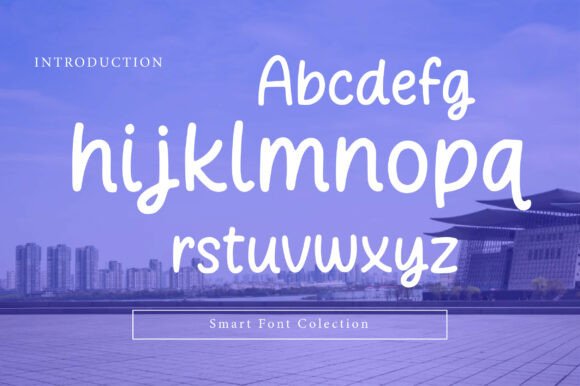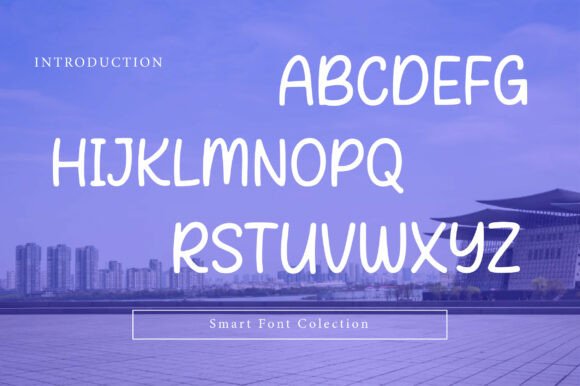
Introduction to Mirexo Font
Have you ever stared at a blank canvas, waiting for the perfect font to bring your creative project to life? That’s exactly what happened to many designers when they discovered the Mirexo Font. Its unique blend of modern and handwritten styles has been making waves in the design community, and for good reason.
With its clean, confident, and contemporary character, the Mirexo Font is the ultimate design resource for any creative project. Whether you’re working on a branding campaign, designing a logo, or creating a stunning poster, this versatile font is sure to deliver a high-quality visual impact.
Key Features of Mirexo Font
- Features a transparent background, making it ideal for use on both light and dark backgrounds.
- Designed with precision and care, offering a high-resolution (up to 300 DPI) font for crisp and clear typography.
- Perfect for use in various design applications, including logos, branding, and digital graphics.
- Comes in a range of sizes, from small to large, allowing for flexibility in design composition.
Honest Review: Mirexo Font
As a designer, I’m always on the lookout for high-quality design resources that can elevate my creative projects. The Mirexo Font is a solid addition to any design library, offering a clean and modern aesthetic that works well for a variety of applications. ✨
- One of the standout features of the Mirexo Font is its versatility. It’s perfect for creating a bold, eye-catching headline or a more subtle body text.
- The Mirexo Font also features a transparent background, allowing for seamless integration with any design element.
However, there are a few limitations to keep in mind. ⚠️ The font’s range of characters is somewhat limited, which may make it less suitable for complex or technical projects.
Overall, I’d recommend the Mirexo Font for designers looking for a high-quality, free design resource that’s easy to use and versatile. While it may not be perfect for every project, it’s a great addition to any design library and can help take your creative projects to the next level.
Tips for Getting the Most Out of Mirexo Font
Experiment with different font sizes, colors, and styles to create a unique look. You can also use Mirexo Font in combination with other design elements, such as images and graphics, to add depth and interest to your design.
Common Use Cases for Mirexo Font
Mirexo Font is perfect for a variety of creative projects, including logos, branding materials, and marketing materials. It’s also great for creating eye-catching headings and titles in presentations and documents.
Q: Does the Mirexo Font have a transparent background?
Yes, the Mirexo Font features a transparent background, making it ideal for use on various design elements, such as icons, logos, and graphics. This allows for seamless integration with other design resources and backgrounds.